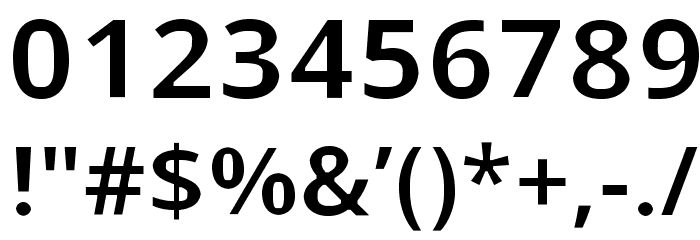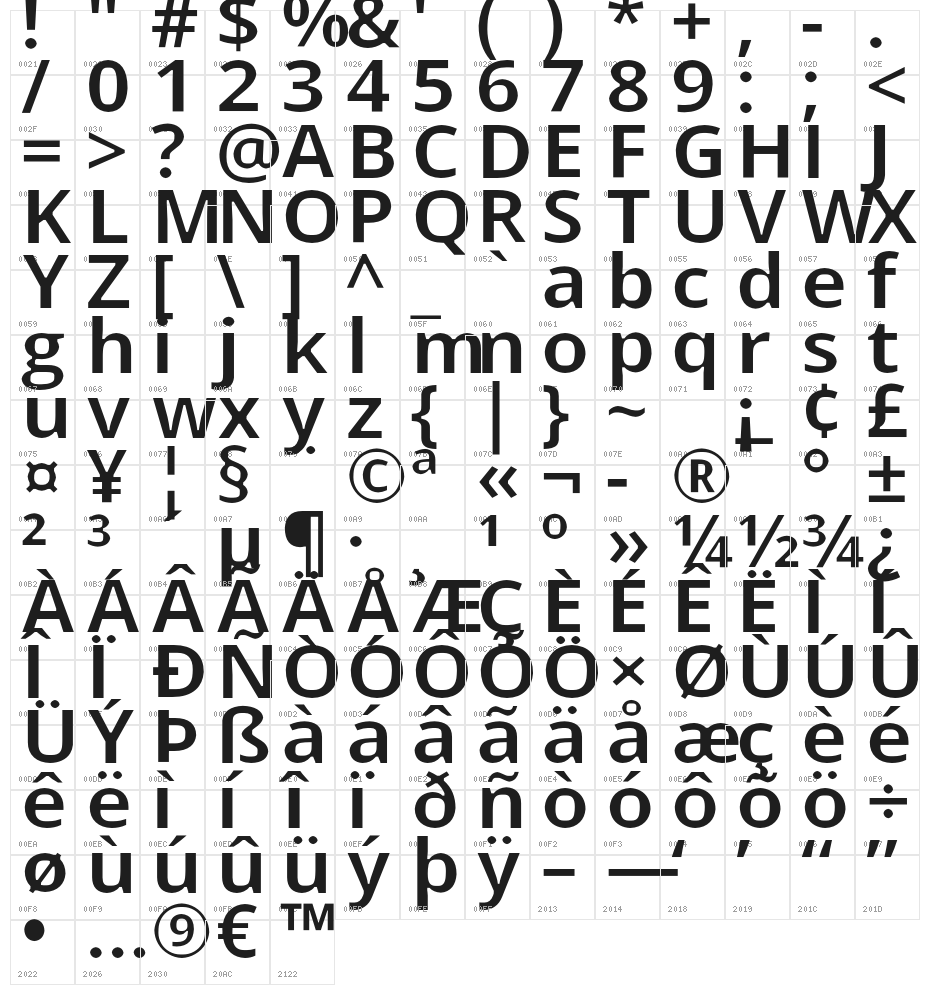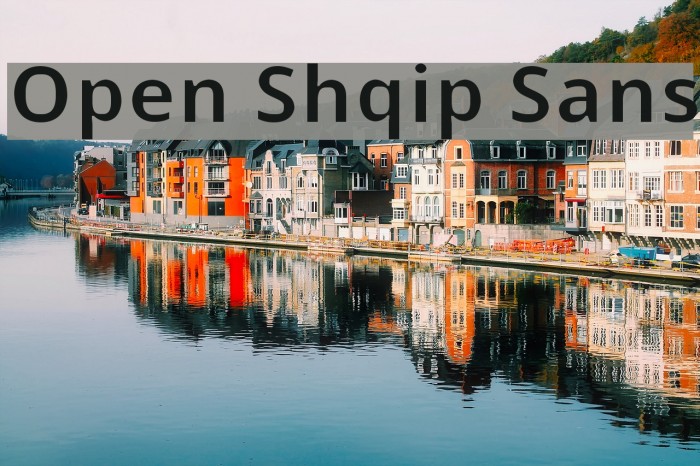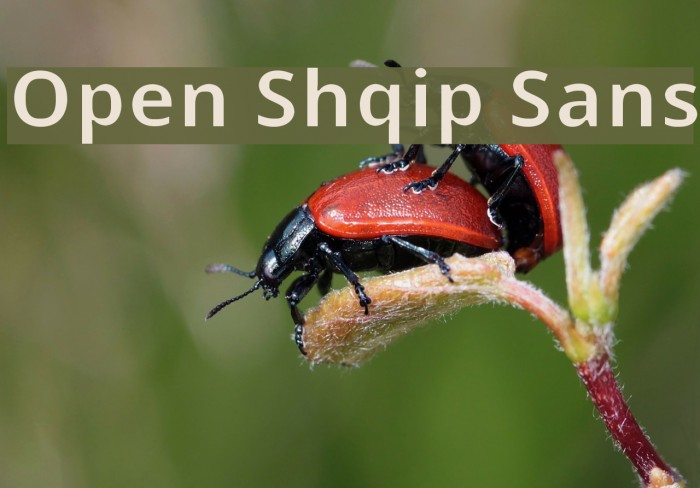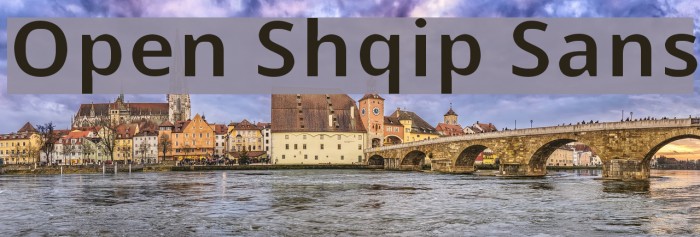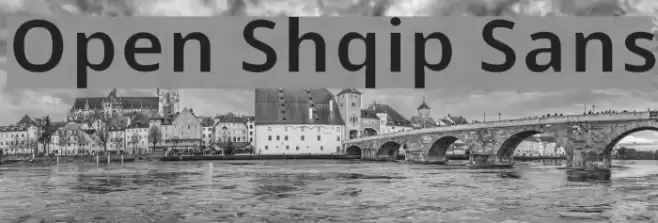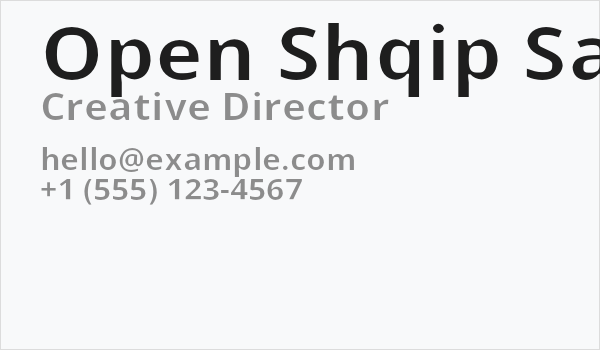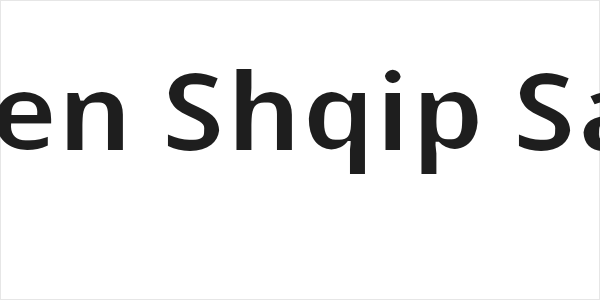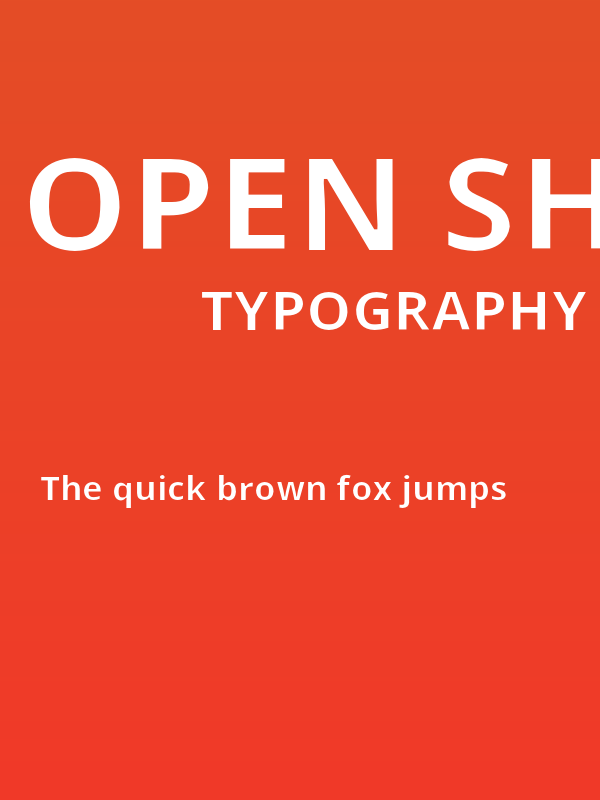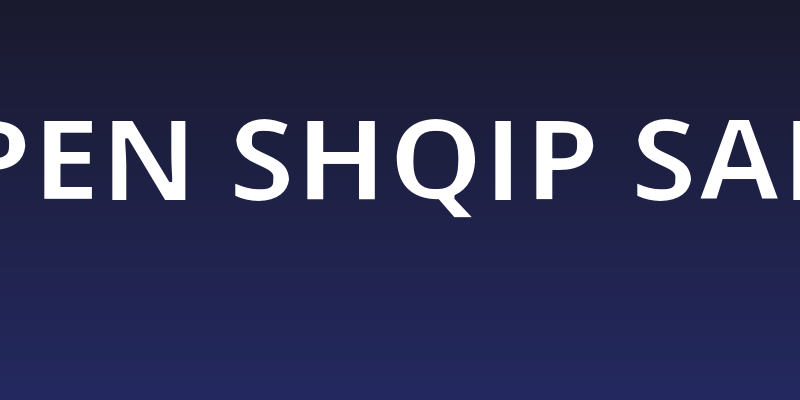
Open Shqip Sans Font
Open Shqip Sans Description
This font features a clean and modern sans-serif design, characterized by its simplicity and readability. The letters are evenly spaced with a uniform stroke width, making it highly legible across various sizes. The uppercase letters are bold and assertive, while the lowercase letters maintain a friendly and approachable appearance. The numerals are clear and distinct, ensuring easy readability. Special characters are well-defined, complementing the overall style. This font is versatile, suitable for both digital and print media, and can be used in a variety of design contexts.